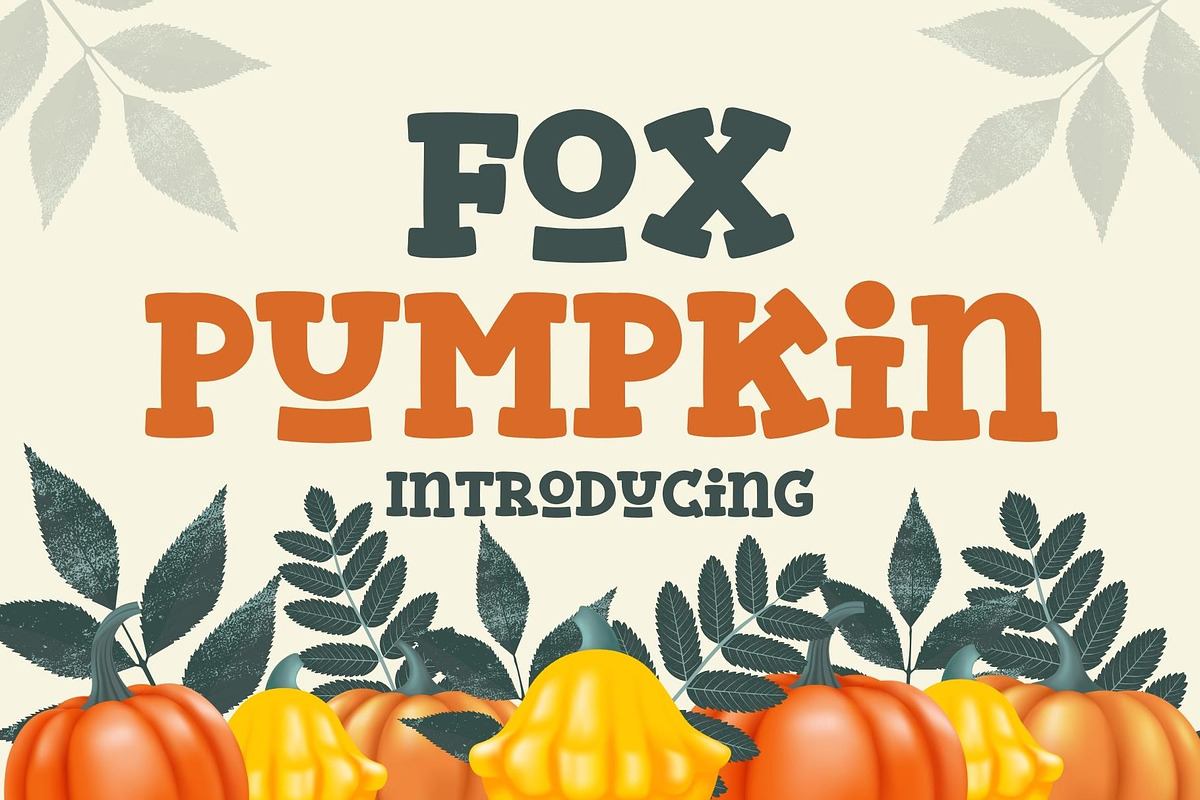
Fox Pumpkin Font Free Download is a cozy, playful typeface inspired by autumn leaves, pumpkin patches, and warm, fuzzy vibes. With its hand-drawn charm and seasonal spirit, this font is perfect for fall-themed graphics, kids’ Halloween crafts, greeting cards, harvest festival flyers, and all things pumpkin-spiced!
Crafted with a friendly, whimsical style, Fox Pumpkin Font Free Download features rounded edges and quirky details that bring a lighthearted tone to any design. Whether you're creating banners for a pumpkin patch event or cute product labels for your homemade autumn goodies, this font brings a whole lot of charm.
Pair it with fall illustrations, earthy tones, and playful layouts for maximum seasonal delight. It’s great for teachers, crafters, small business owners, or anyone who loves capturing the magic of the cozy season.
Let your designs fall into place with Fox Pumpkin—because every letter feels like a hug in font form.